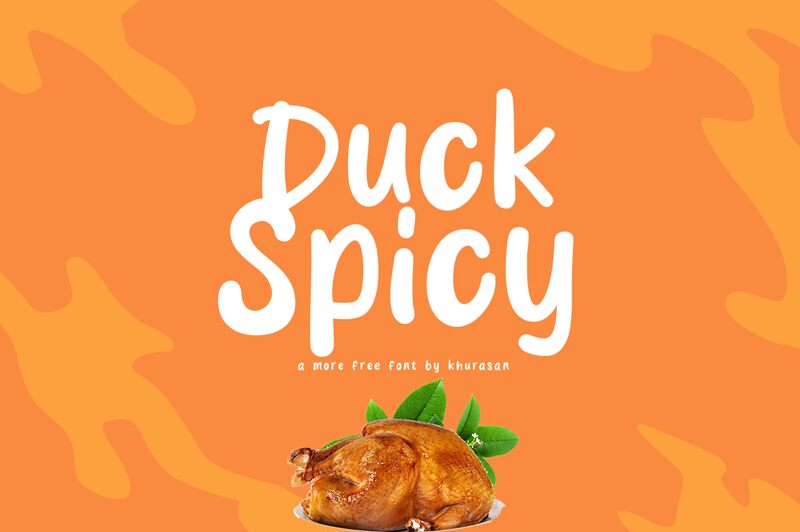
Duck spicy
Duck Spicy, a playful display font by Khurasan, is here to add a touch of whimsy to your projects.
With its cartoon style and semi-bold weight, this font is perfect for children's books, animated movie titles, and vibrant posters. Its script style adds a hint of personality that can bring your designs to life. Whether you're creating a fun logo or eye-catching packaging, Duck Spicy will surely make an impact.
Let your imagination run wild with this lively and expressive typeface.